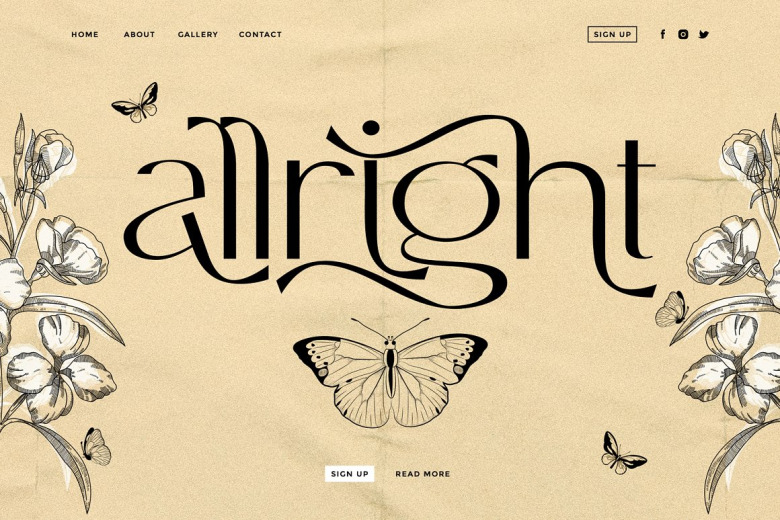
Allright – Fashionable Font
Allright Font
Allright Fashionable Font is a stylish modern calligraphy font with casual chic flair. It’s a modern font that is both memorable and stylish. It’s a mix between a classic sans serif and a futuristic sans serif. It is perfect for branding, wedding invites and cards, and maybe for some project.
To make it look more unique, here we prepared some ligatures:
ag dg qg ay dy ky hy my ny uy qy as ds zb lg ra hg mg ng tg ug th Th fh fb fk TT tt az zu zn zh zi ms ns hs ks cs si sj rc ab AE…